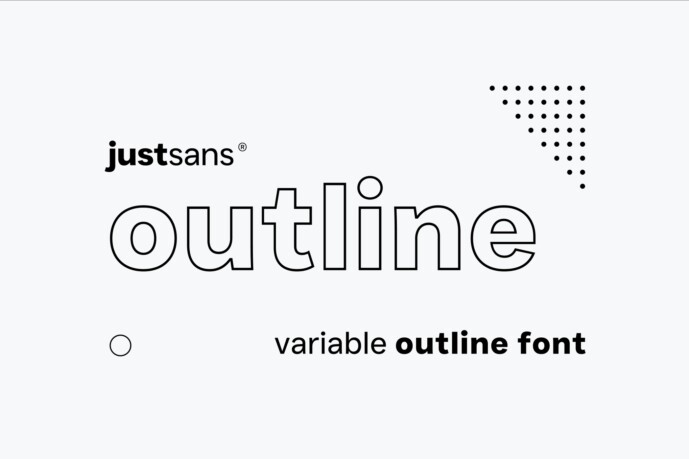
JUST Sans® OUTLINE Font
JUST Sans® Outline – The Perfect Companion to JUST Sans
JUST Sans Outline is the perfect companion to the best-selling sans-serif JUST Sans, adding depth, contrast, and dimension while retaining the clean, modernist warmth of the original.
Designed to be used alongside JUST Sans, it provides a striking way to create bold, expressive typography with greater creative flexibility.
With its precisely balanced negative and positive space, JUST Sans Outline delivers crisp definition and structured elegance, making text pop off the page.
Retaining the open, geometric foundation and signature sharp terminals of JUST Sans, it introduces a refined, linear aesthetic—perfect for logos, branding, packaging, UI/UX, signage, and high-contrast headlines.